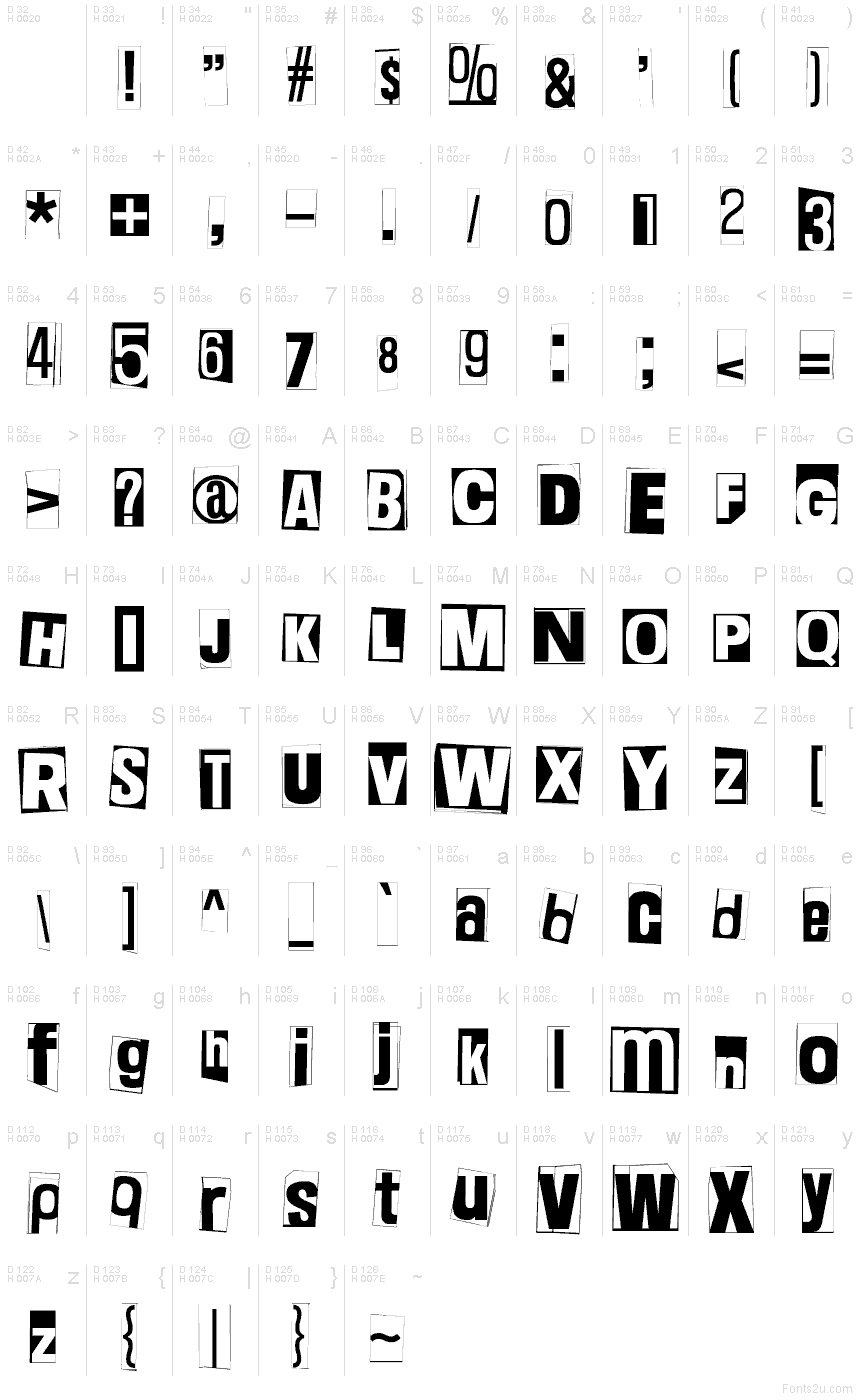
Two Down, One to Go font by Juha Korhonen is a free distorted display font. Built around stark, cut-and-paste blocks, it shuffles chunky rectangles and compressed strokes into a jittery, high-contrast rhythm. Letters feel collaged-some squashed, some stretched-creating a gritty, handmade energy that reads loud and immediate without losing legibility.
Using Two Down, One to Go, your headlines snap with punky urgency-great for gig posters, zines, horror titles, protest graphics, video thumbnails, and underground event branding. The irregular spacing adds tension, so let it breathe at larger sizes. Pair this free font with a plain grotesk for body copy to keep the message sharp and the chaos intentional.